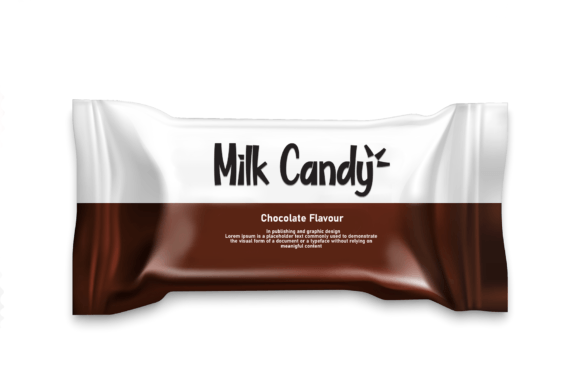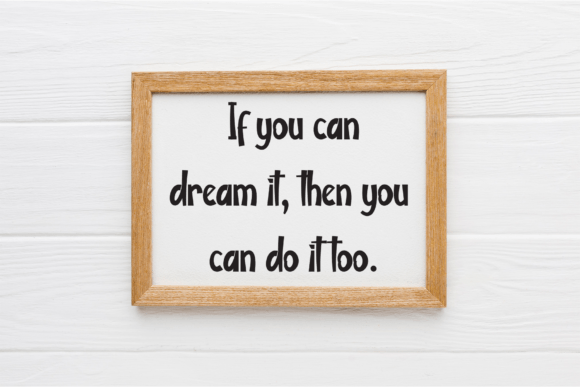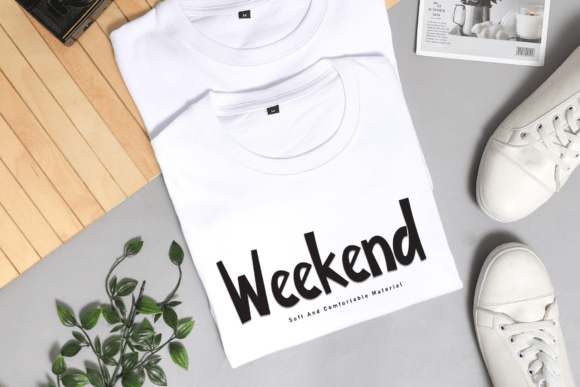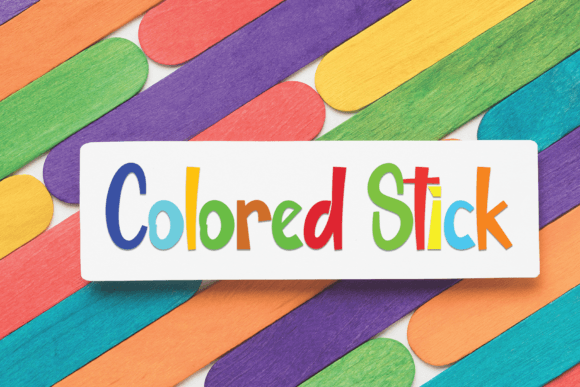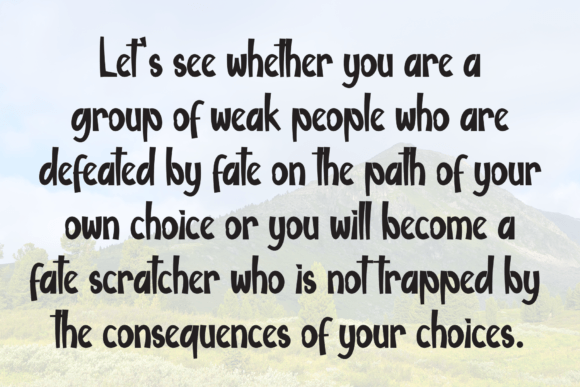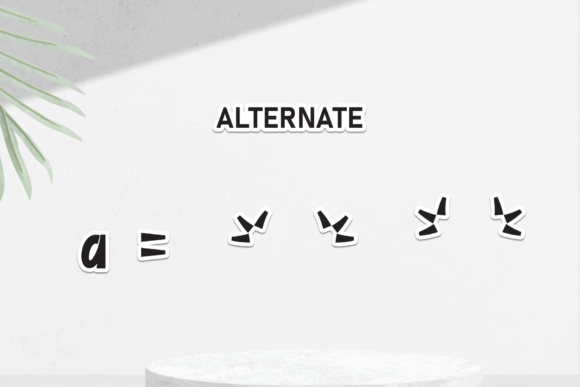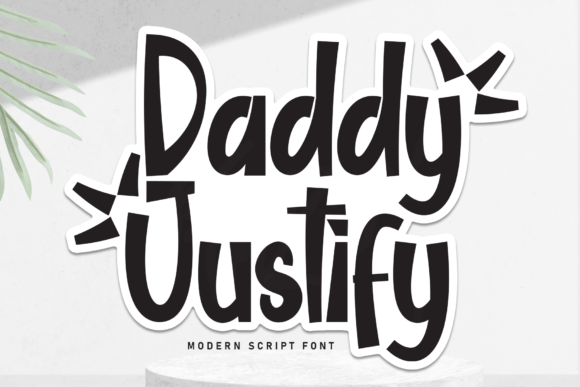
Daddy Justify Font: The Sweet and Friendly Handwritten Font for Your Designs
Are you looking for a font that can add a personal touch to your designs? Look no further than Daddy Justify Font! This sweet and friendly handwritten font is perfect for designers and crafters who want to create unique and eye-catching designs. In this article, we’ll take a closer look at Daddy Justify Font, its features, and how you can use it to take your designs to the next level.
What is Daddy Justify Font?
Daddy Justify is a beautiful handwritten font that is designed to be both sweet and friendly. Its natural and unique style makes it incredibly fitting to a large pool of designs, from handmade crafts to digital products. The font’s versatility is limitless, and the only limit is your imagination!
Features of Daddy Justify Font
- Handwritten style: Daddy Justify Font has a beautiful handwritten style that gives it a personal and unique touch.
- Sweet and friendly: The font’s sweet and friendly tone makes it perfect for designs that require a playful and approachable feel.
- Natural and unique: The font’s natural and unique style makes it stand out from other fonts and allows you to create designs that are truly one-of-a-kind.
- Versatile: Daddy Justify Font is incredibly versatile and can be used for a wide range of designs, from handmade crafts to digital products.
How to Use Daddy Justify Font
Daddy Justify Font is perfect for designers and crafters who want to add a personal touch to their designs. Here are some ideas on how to use the font:
- Handmade crafts: Use Daddy Justify Font to create beautiful handmade crafts, such as greeting cards, gift tags, and scrapbook pages.
- Digital products: Use the font to create digital products, such as printable art, planners, and journals.
- Branding: Use Daddy Justify Font to create a unique and recognizable brand identity for your business or product.
- Social media graphics: Use the font to create eye-catching social media graphics, such as Instagram posts and Facebook graphics.
Tips for Using Daddy Justify Font
Here are some tips for using Daddy Justify Font:
- Use it with a playful tone: Daddy Justify Font is perfect for designs that require a playful and approachable tone.
- Experiment with colors: The font looks great in a variety of colors, so don’t be afraid to experiment and find the perfect color for your design.
- Pair it with other fonts: Daddy Justify Font pairs well with other fonts, so try pairing it with a bold font for a fun and playful look.
Daddy Justify Font is a sweet and friendly handwritten font that is perfect for designers and crafters who want to add a personal touch to their designs. Its natural and unique style makes it incredibly versatile, and the only limit is your imagination! With its beautiful handwritten style, sweet and friendly tone, and versatility, Daddy Justify Font is a must-have font for any designer or crafter.
- What is Daddy Justify Font?: Daddy Justify Font is a sweet and friendly handwritten font that is perfect for designers and crafters who want to add a personal touch to their designs.